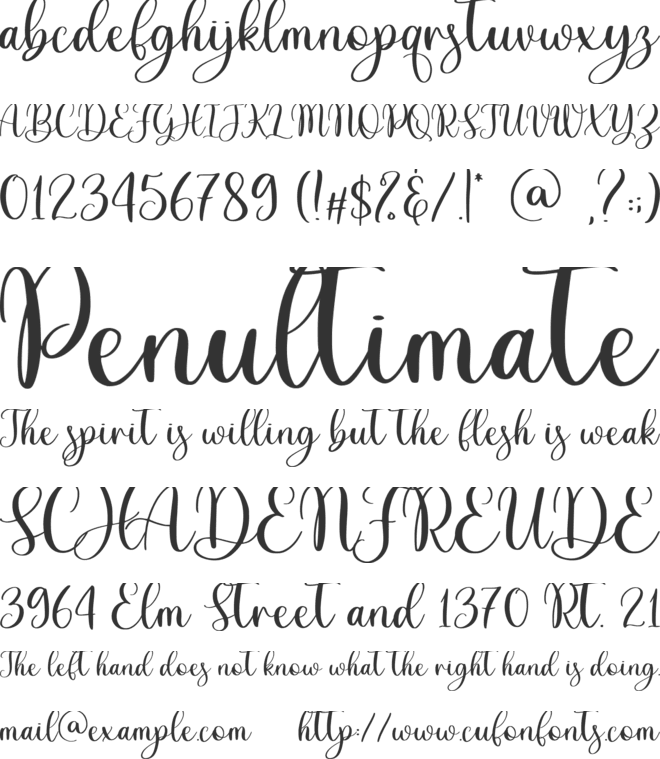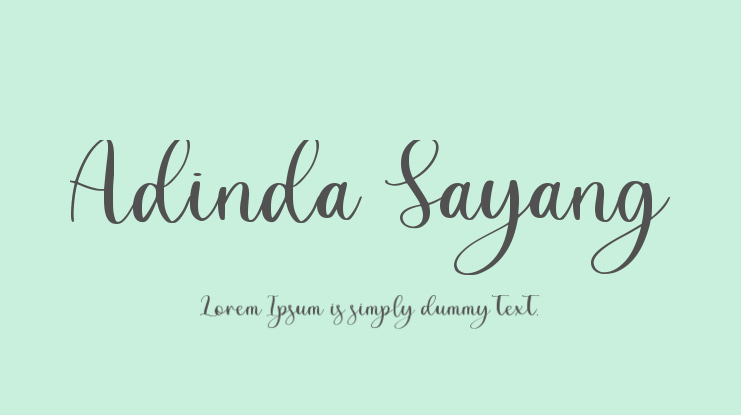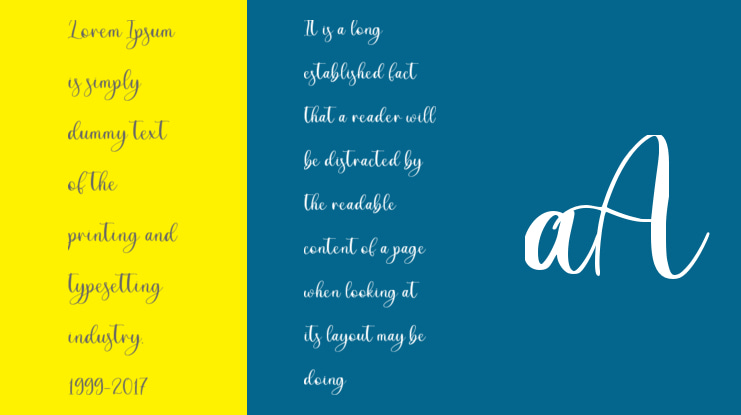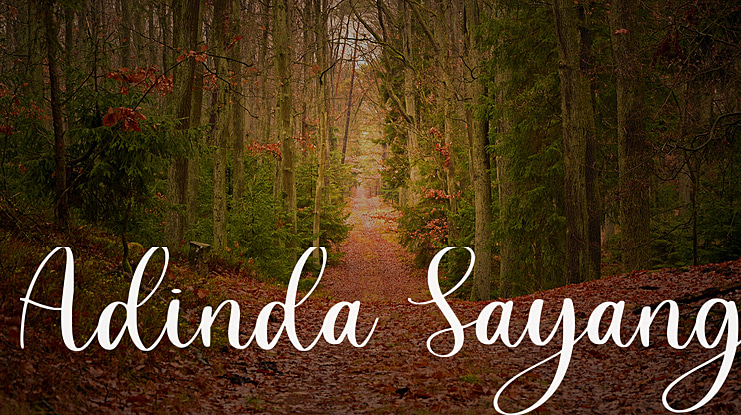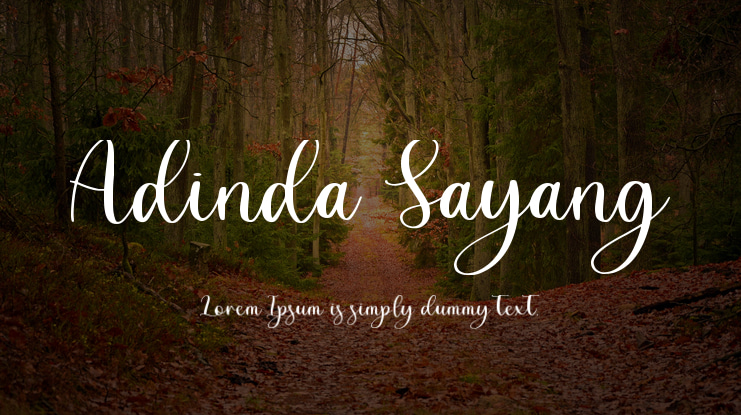
Adinda Sayang Font
ADINDA SAYANG -bouncy calligraphy font-
it is great for branding, packaging, quotes, wedding card, logo, signature, t-shirt design, card, banner, and more.
Came with 287 alternate glyphs. Every Uppercase Character have 2 alternate. And every lowercase character has 8 - 11 alternate. it is very easy to access, even you use standard software. I created the ligature for it. So you only need to add some characters before or after the lowercase. (You can see on the picture)